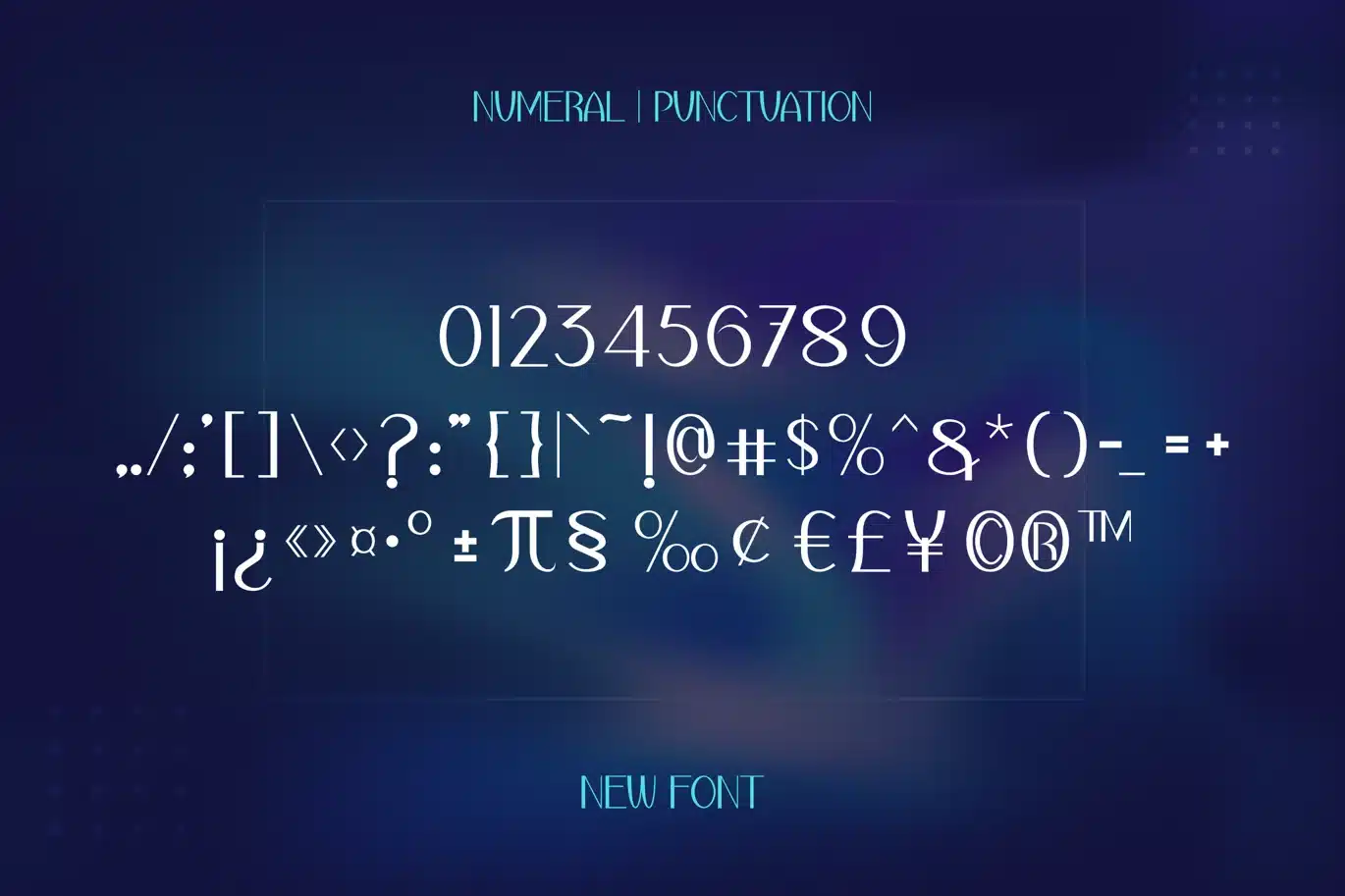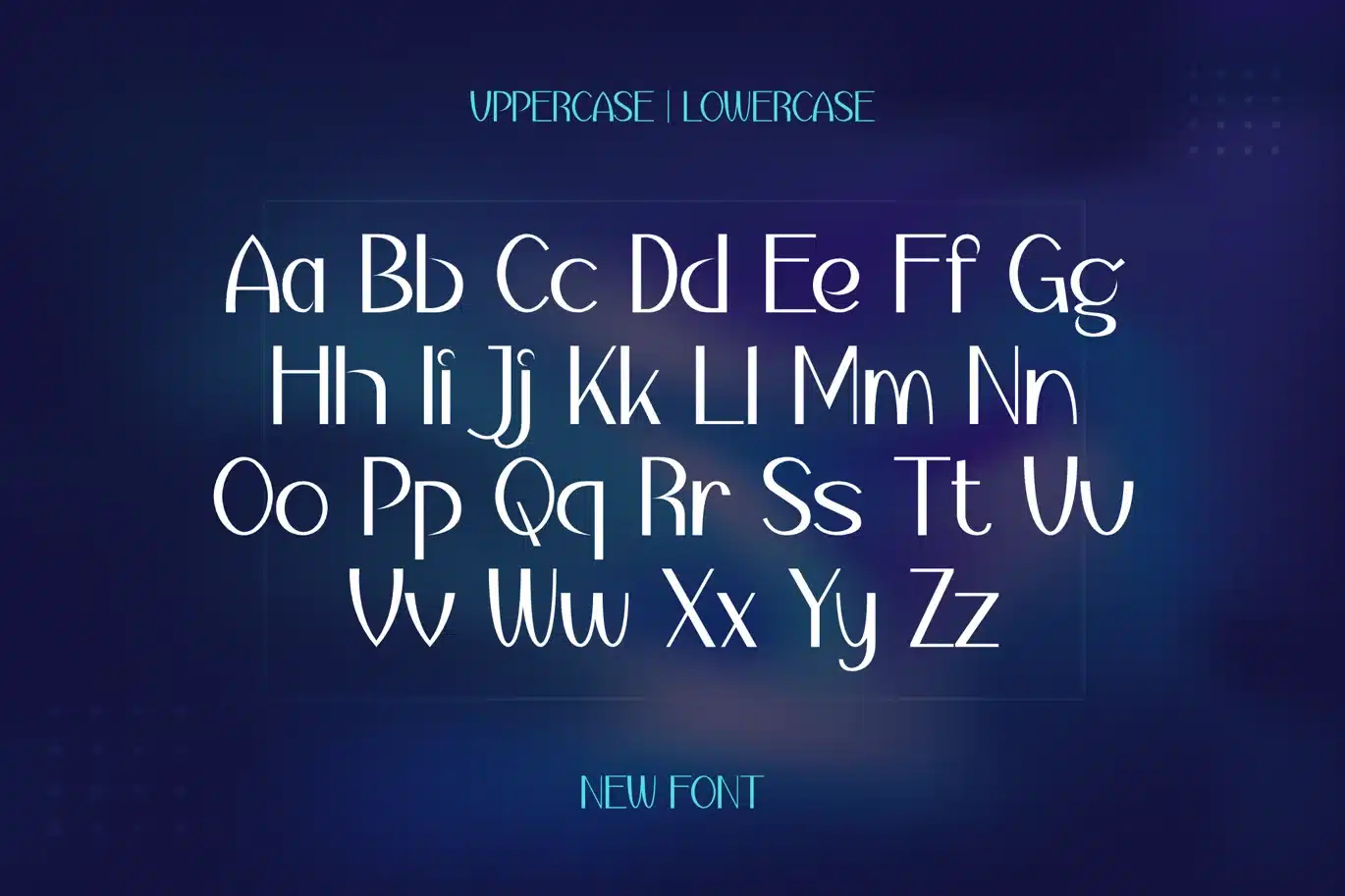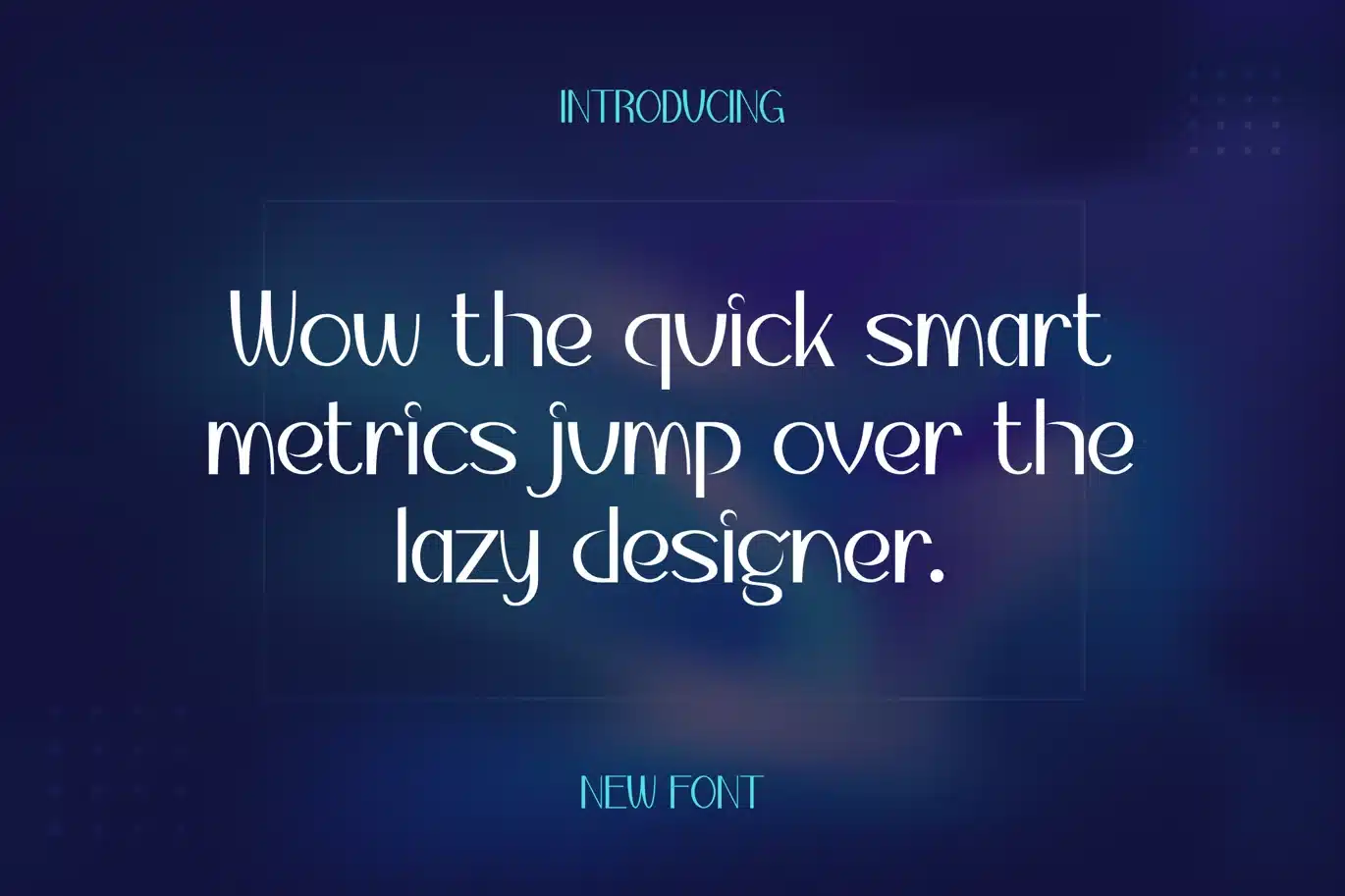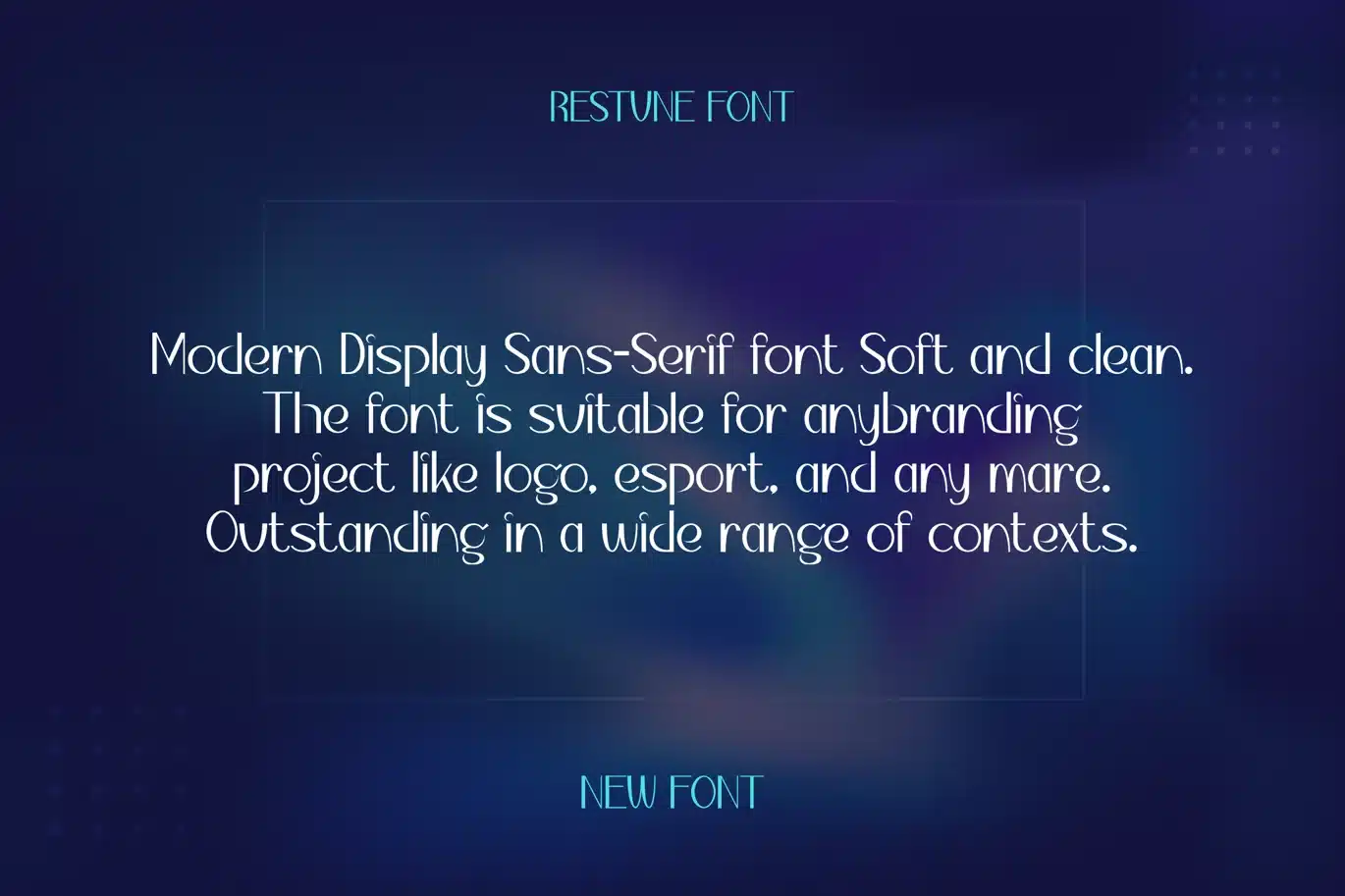
Restune – Modern Display Sans-Serif Font
Restune is a super thick typeface with more traditional letter shapes, making it perfect for creating (or recreating) the concise look of film poster production credits.
- Uppercase Characters
- Lowercase Characters
- Punctuation & Numbers